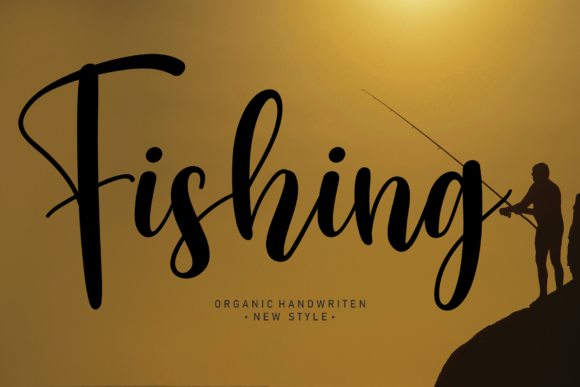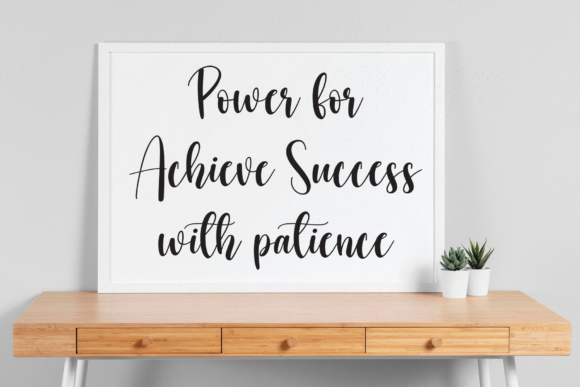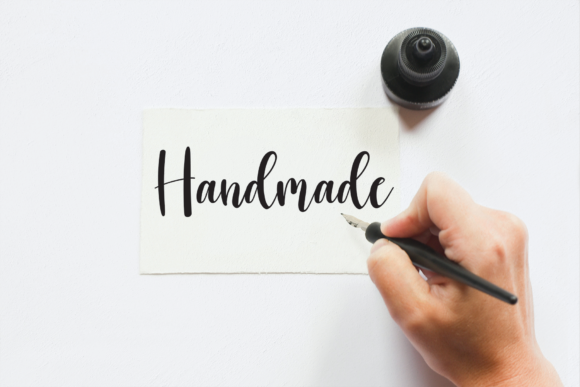
About Fishing Font
Fishing is a lovely and timeless handwritten font. It is the best choice for creating eye catching logos, branding and quotes. Every letter has a unique and beautiful touch, which will make your design come alive!